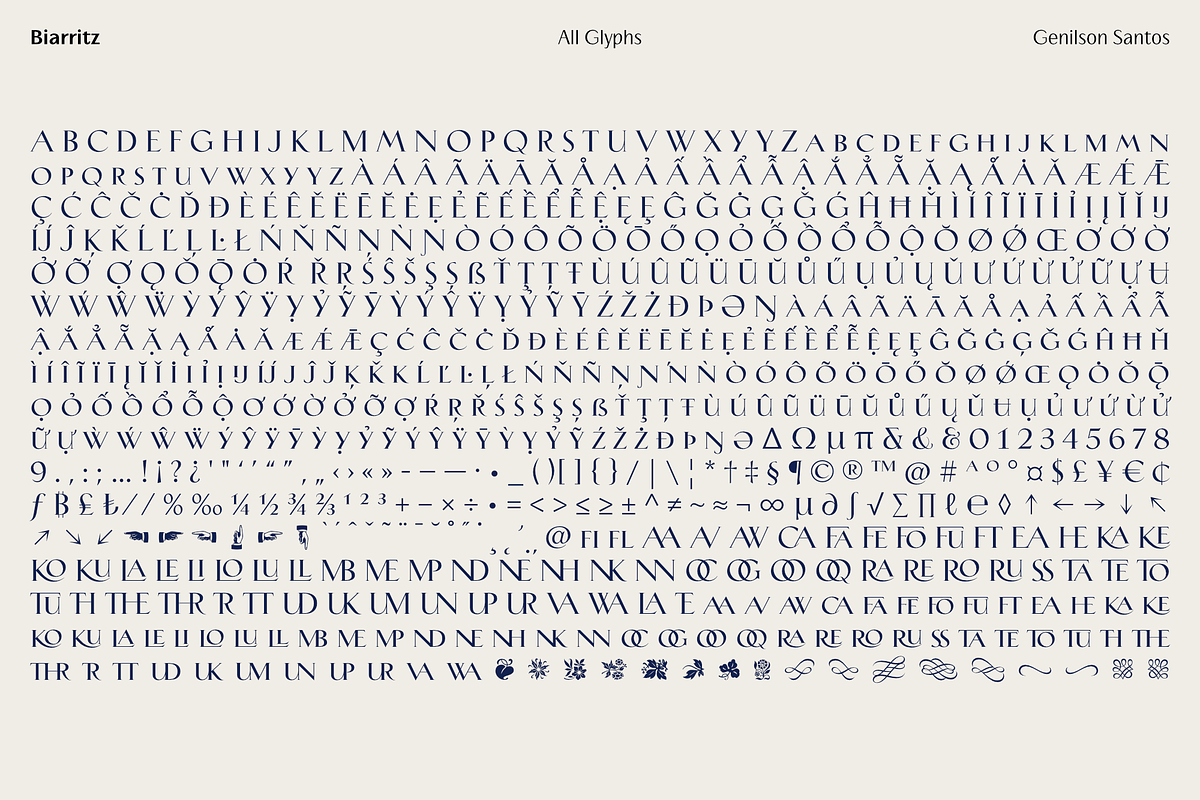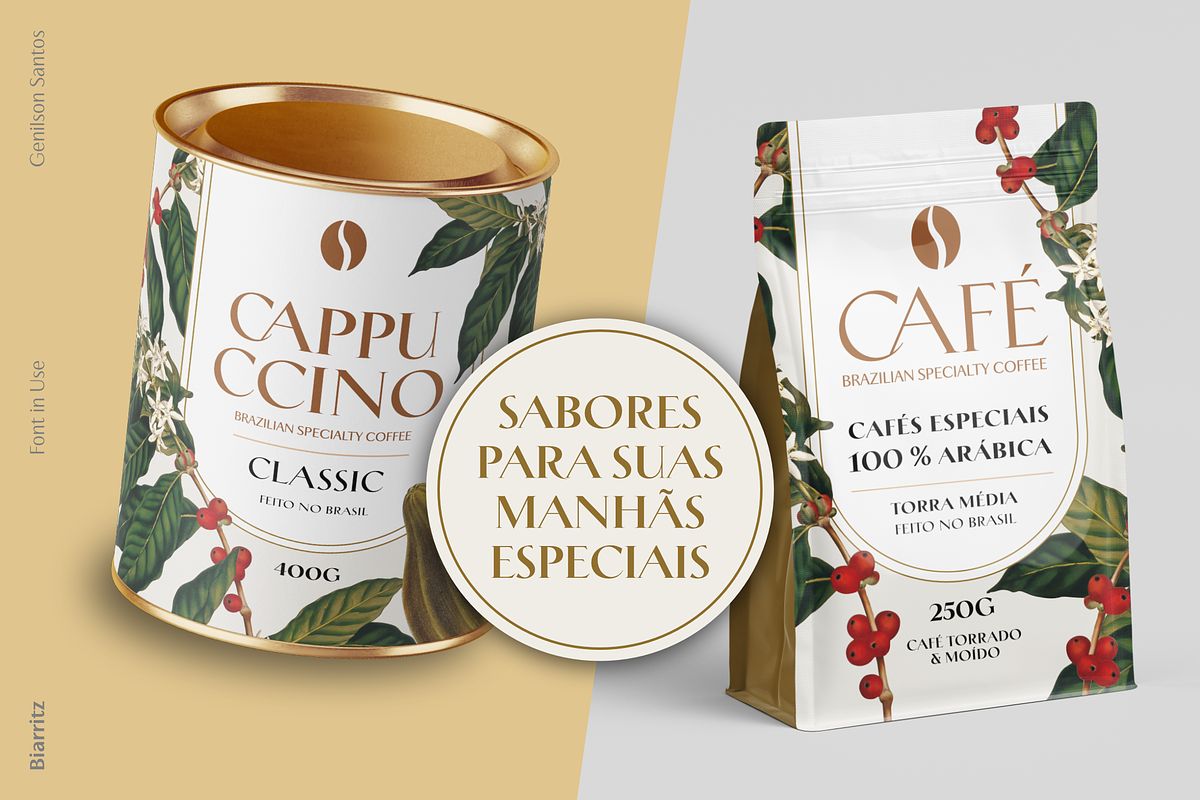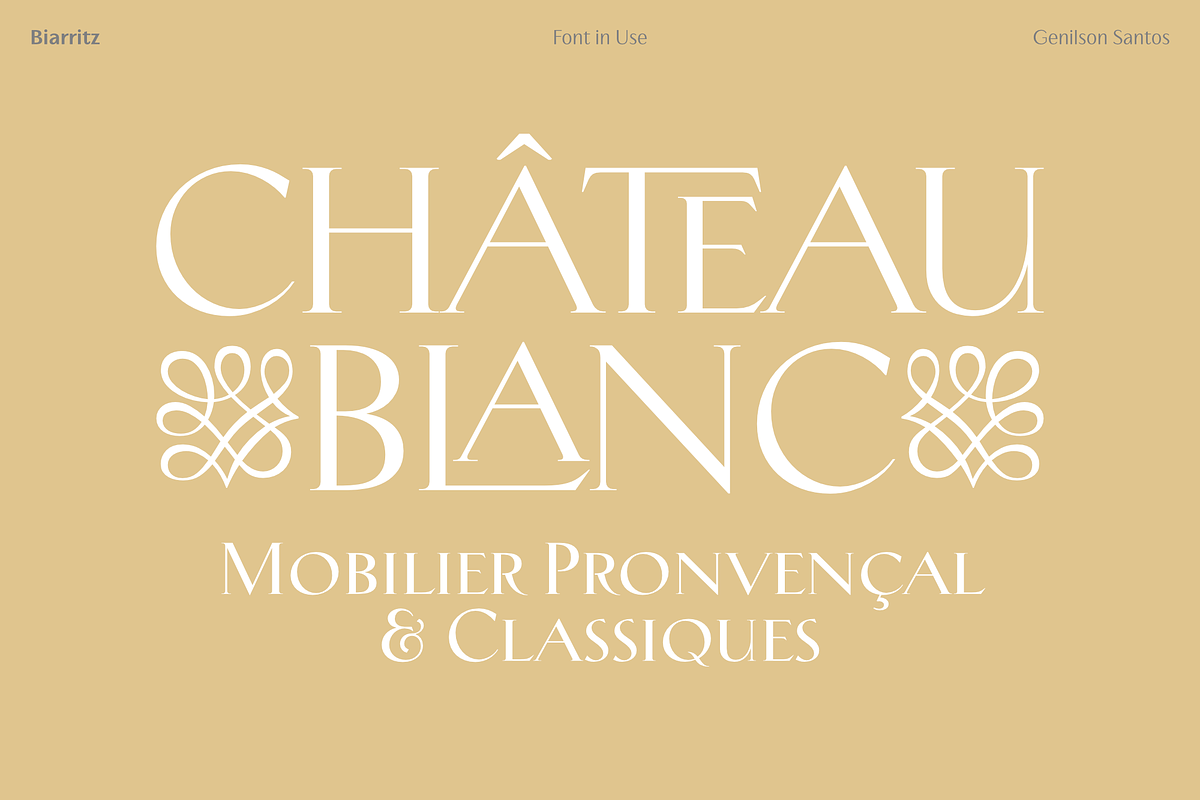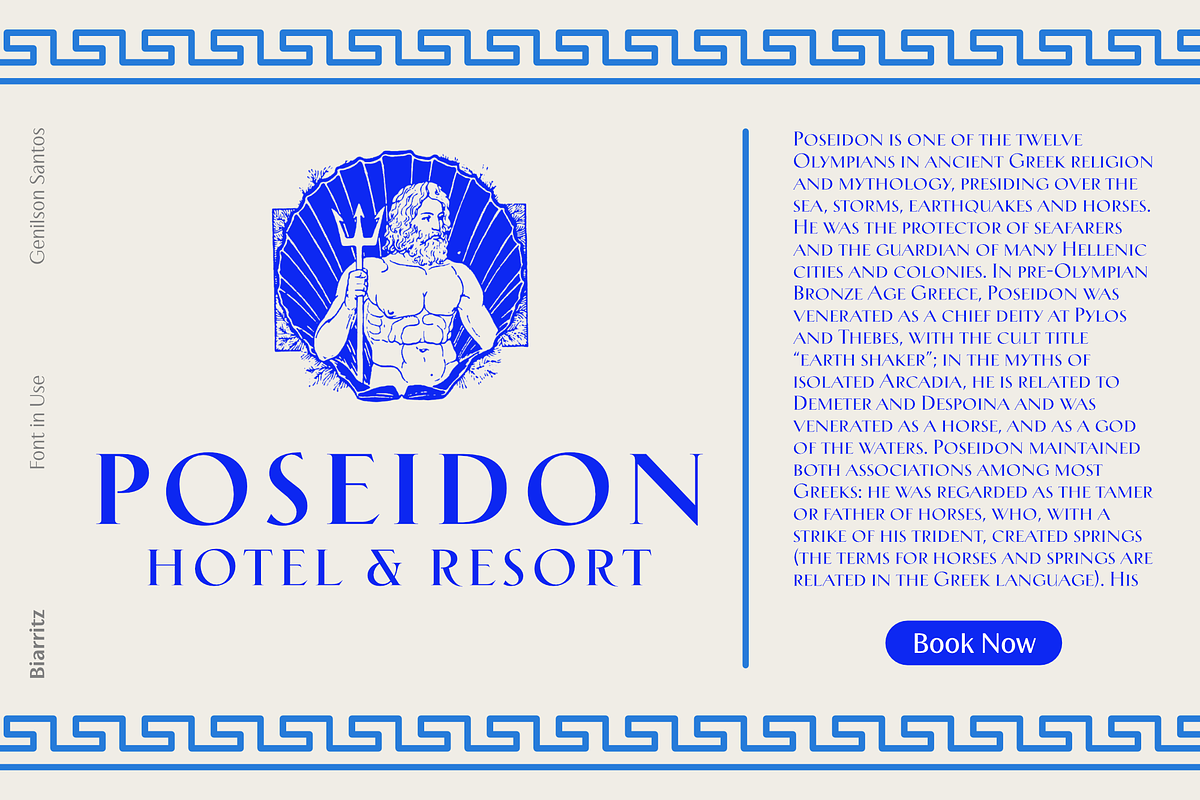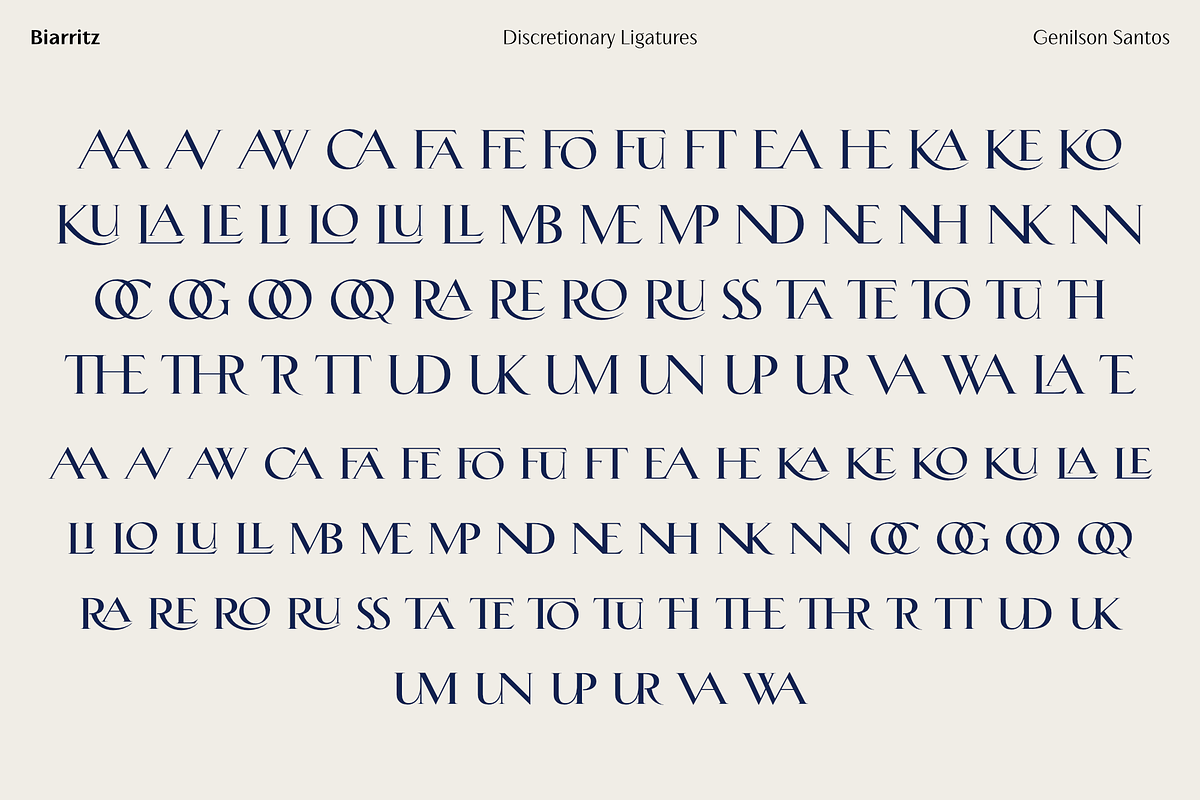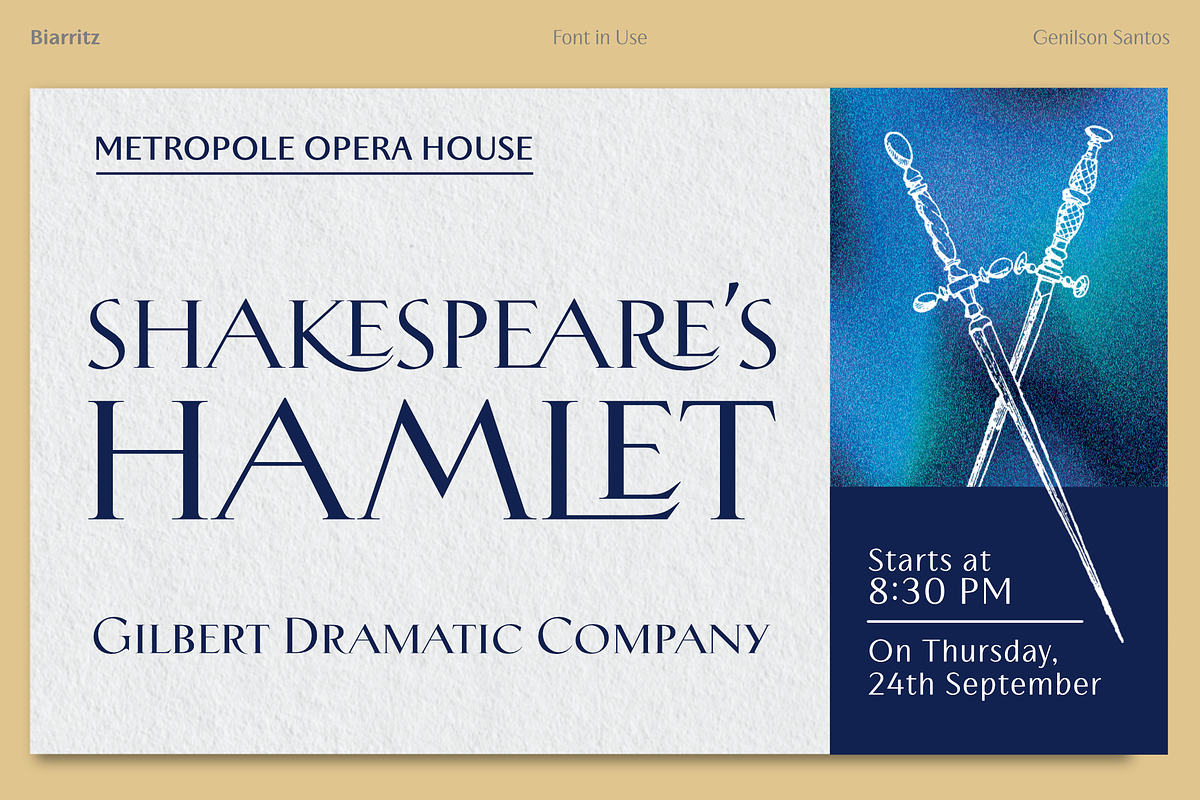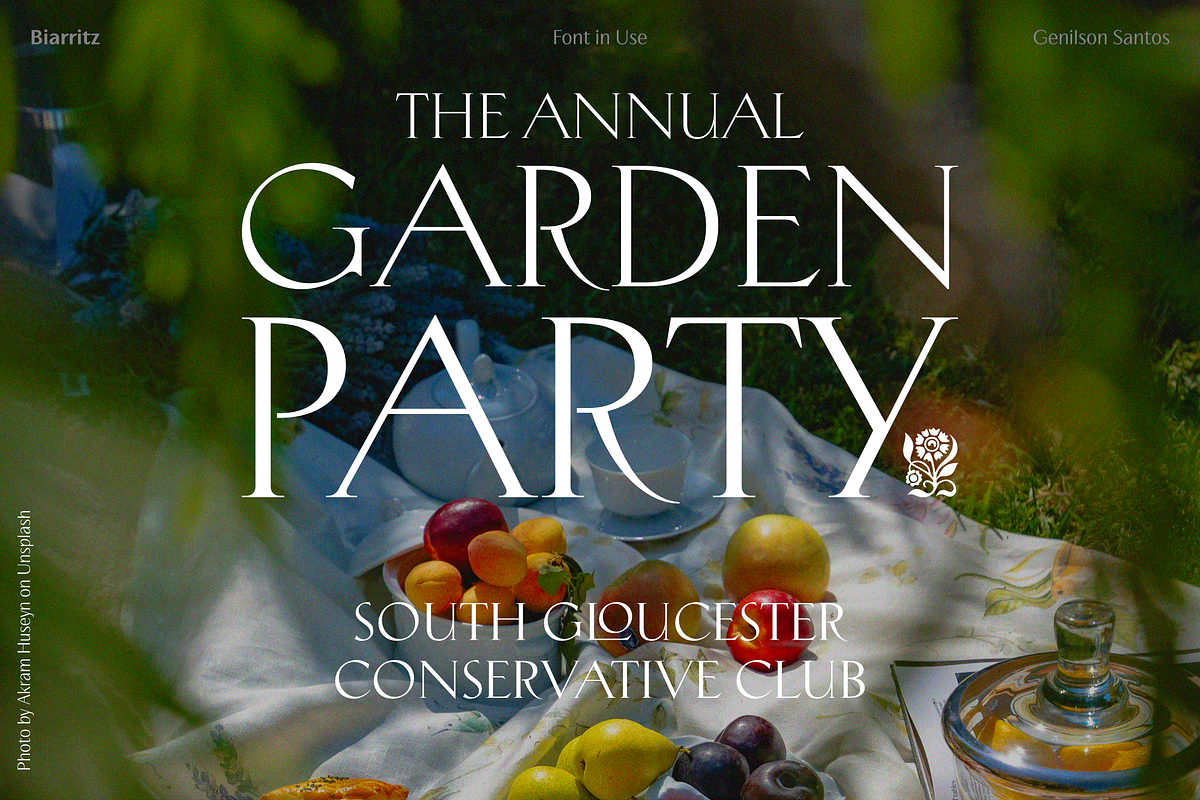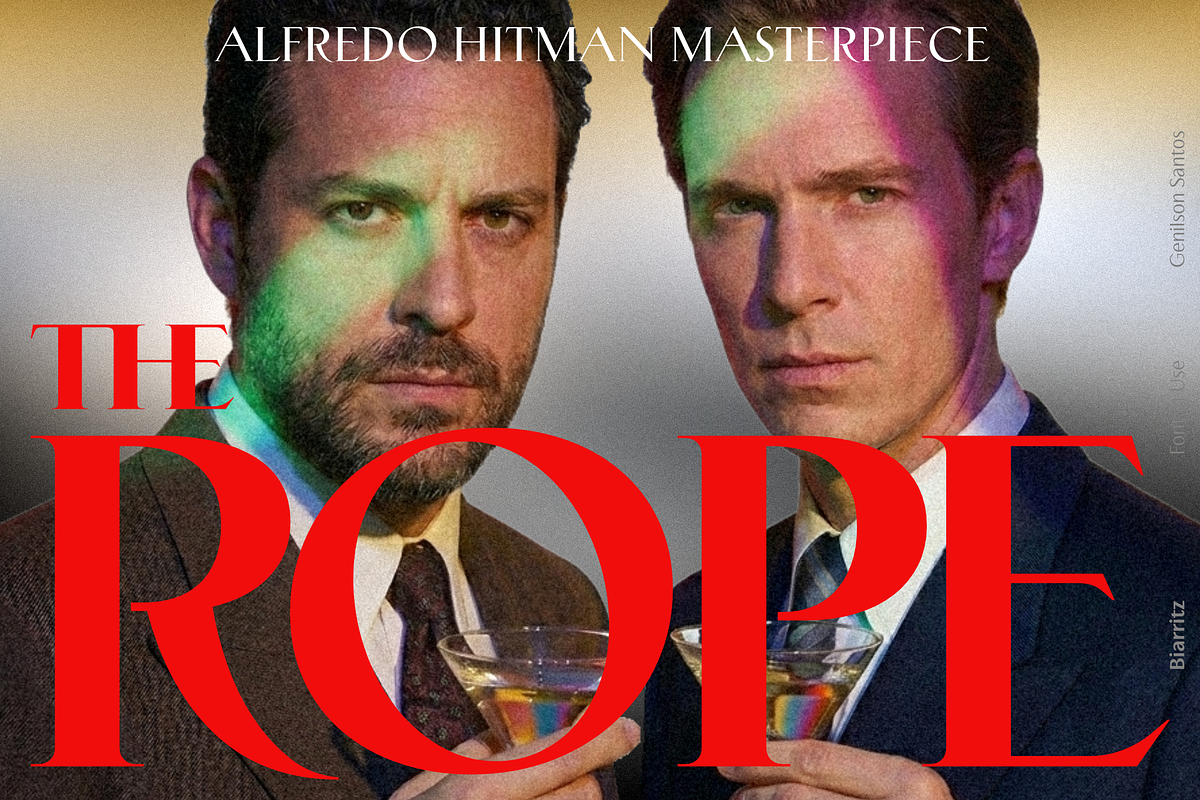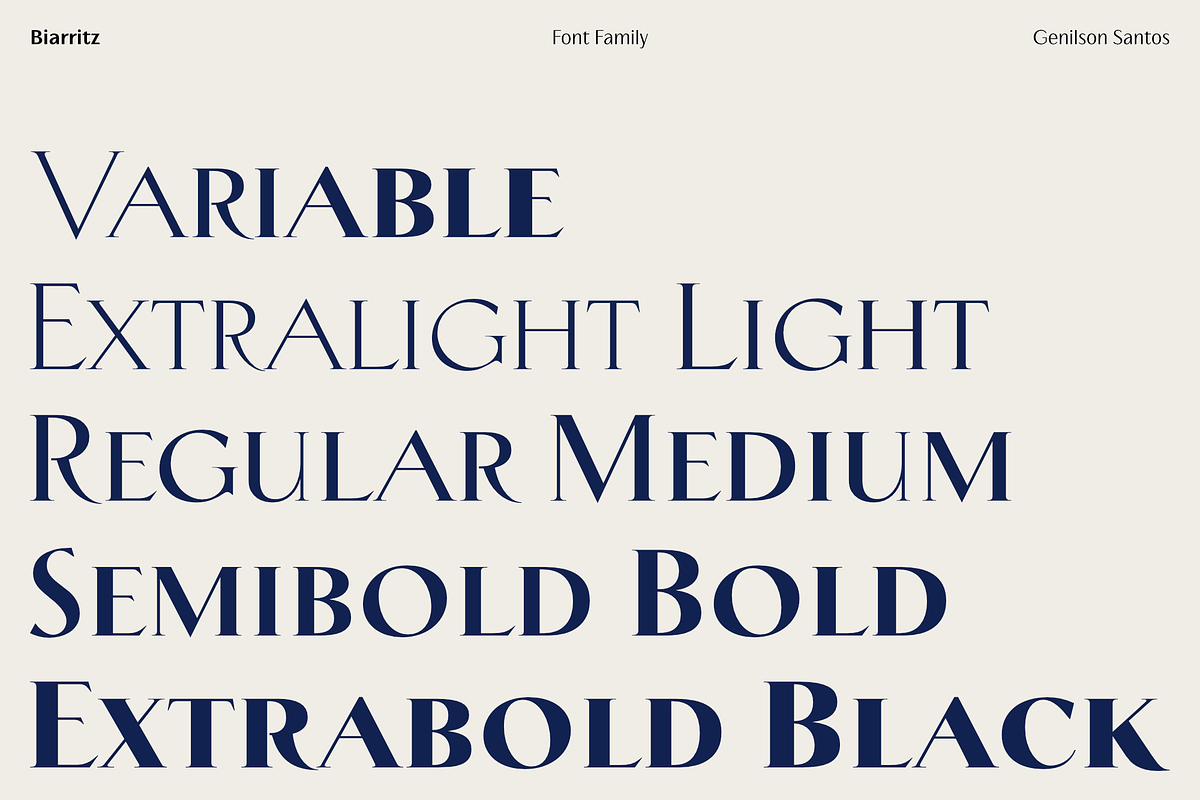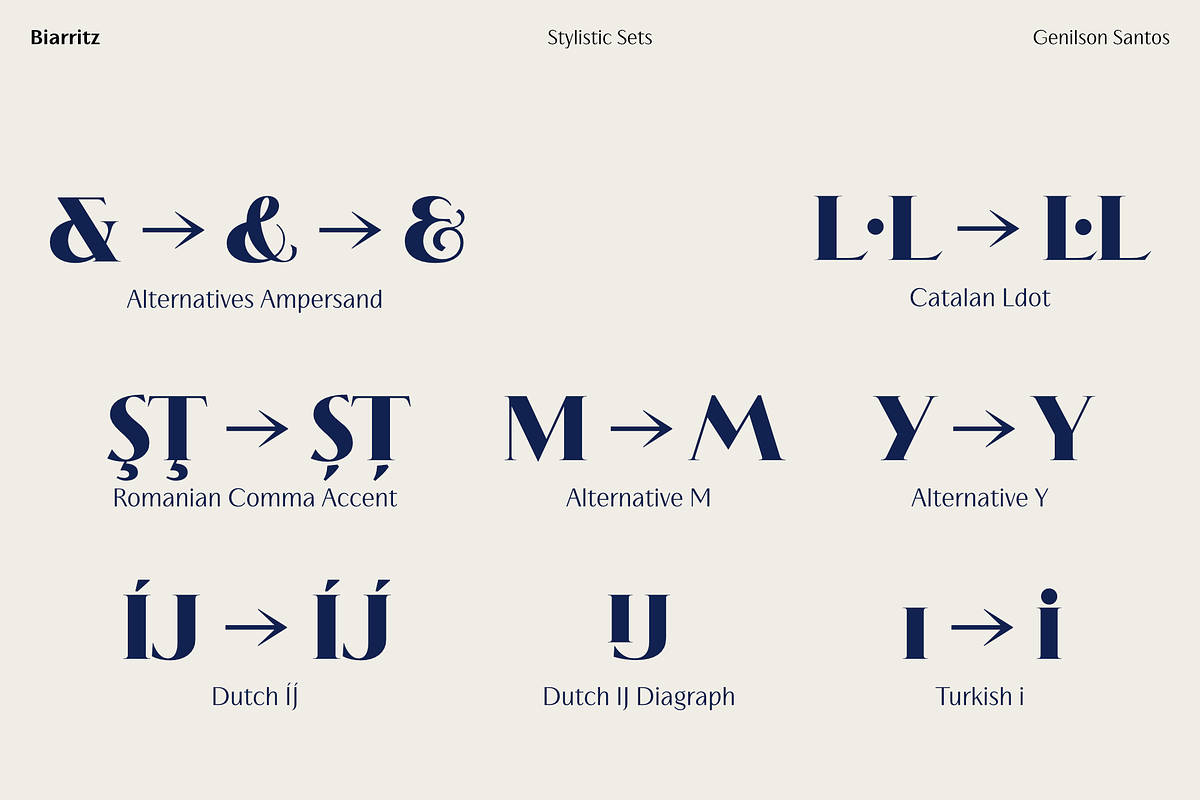
Biarritz Luxury Editorial Serif
Elevate your designs with Biarritz, a refined serif typeface where classic elegance meets contemporary precision.
Biarritz is a high-contrast serif font designed for those who seek a balance between timeless sophistication and modern chic. Inspired by the aesthetics of high-end fashion and editorial excellence, this typeface features sharp serifs, delicate hairlines, and graceful curves that command attention without losing legibility. Biarritz captures the spirit of "Le Grand Luxe." Its refined hairlines and sturdy serifs create a sophisticated texture in headlines, mastheads, and luxury packaging. Whether you are designing for a boutique hotel, a premium fragrance line, or a high-fashion editorial, Biarritz provides a polished, bespoke feel to every layout.
Biarritz is more than just a beautiful face; it is a work of technical precision:
8 Weights + Variable Font: From the delicate ExtraLight to the impactful Black, Biarritz offers a complete typographic system. The included Variable version allows for infinite flexibility in digital and motion design.
High-End Editorial Feel: Perfectly balanced strokes provide a luxurious feel, ideal for large headlines and display use.
Advanced OpenType Features: Access a world of customization with discretionary ligatures and stylistic alternates, allowing for unique, bespoke typographic layouts with a single click.
Extended Multilingual Support: A robust character set supporting over 200+ Latin-based languages, ensuring your message reaches a global audience.
Whether you are working on a luxury brand identity or a high-traffic editorial site, Biarritz adapts to your needs:
Branding & Logos: Create memorable, high-end visual identities.
Editorial Design: Perfect for magazine mastheads, titles, and pull-quotes.
Wedding & Event Stationery: Adds a touch of class to invitations and menus.
Web & Social Media: Stands out in digital advertising and sophisticated web headers.